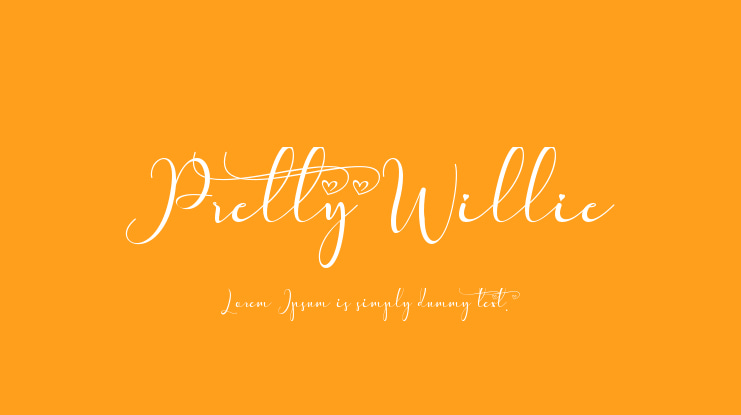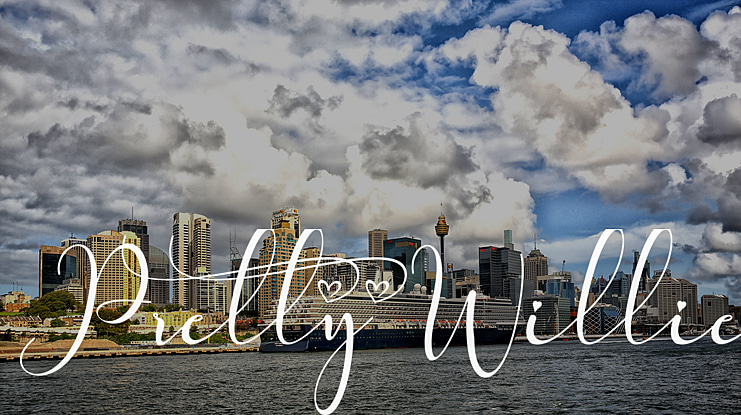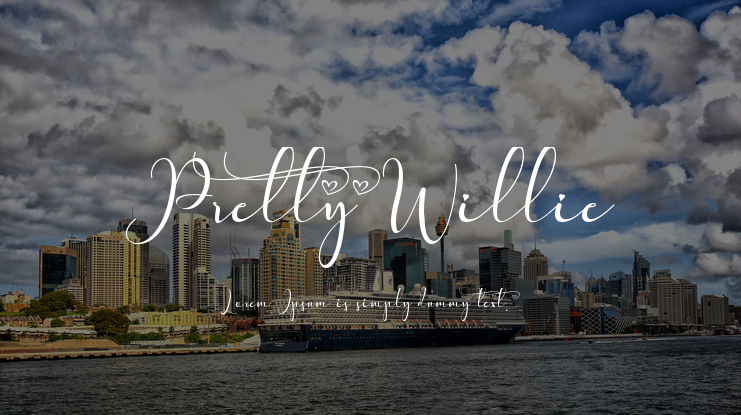
Pretty Willie Font Family
"Pretty Willie" is the name of this very beautiful and romantic font. "Pretty Willie" is very beautiful and elegant. This font is a modern calligraphy that is perfect for beautifying your work. When creating this font it is in very comfortable and romantic conditions. Accompanied by a beloved wife who is always supportive. This font is perfect for all your wedding needs. Very beautiful to make wedding invitations, greeting cards, wedding planners, wedding photography, to express your feelings to the people you care about, make romantic words. Can also promote your business on social media, create your business logo and more.
Pretty Willie font preview
Pretty Willie Regular font
Pretty Willie Italic font